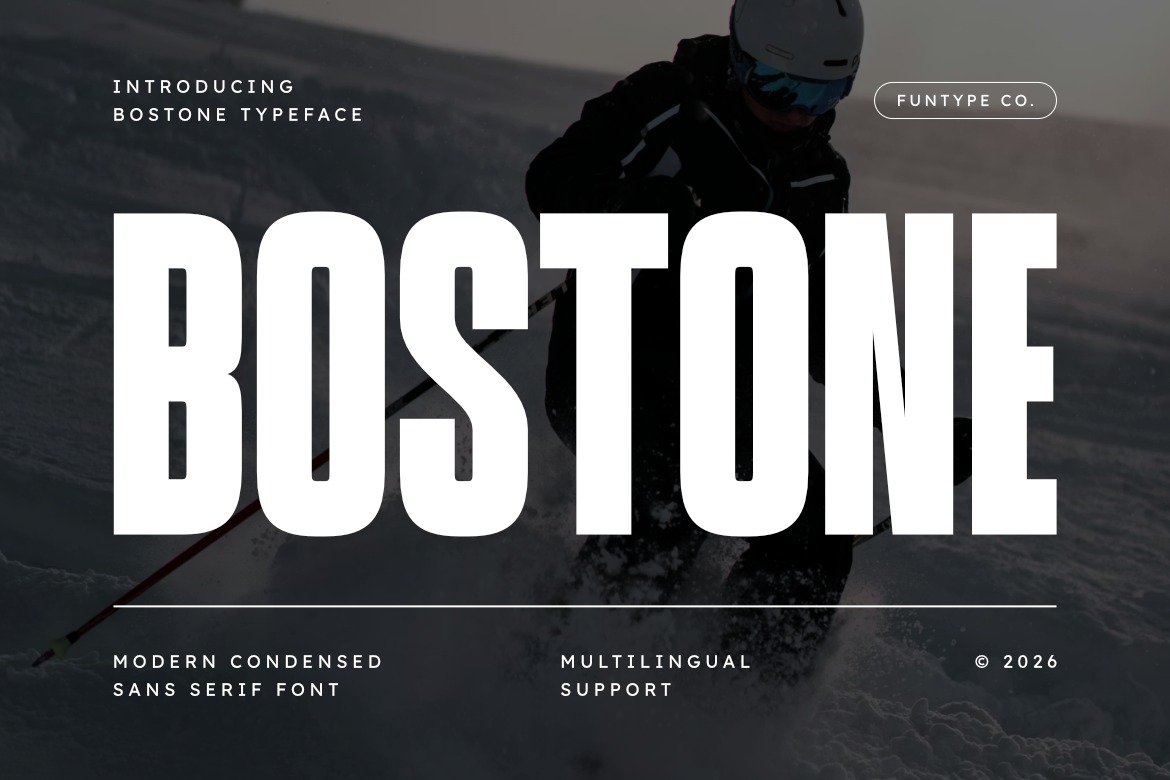
Bostone Font
Bostone Font – Modern Condensed Sans Serif Font is a premium-quality font developed to enhance your work with a polished, modern, and visually elevated look. Bostone is a sophisticated and powerful modern condensed sans serif font, thoughtfully designed to capture the essence of vertical impact and contemporary storytelling. With its tall, ultra-compressed structure and clean geometric lines, Boston offers a professional aesthetic that brings a touch of commanding presence to any creative project.
This font is the ideal choice for designers looking to add a professional yet high-impact touch to their work. Whether you are crafting a striking cinematic poster, a sleek sports brand identity, or bold editorial layouts, Boston provides a seamless blend of modern edge and digital authority.
Main Features:
Modern Condensed Design: Optimized for a bold, space-efficient, and professional look.
Clean Vertical Lines: Meticulously crafted for superior visibility and a high-end feel.
Commanding Presence: Perfect for headlines, posters, and large-scale digital displays.
Professional Aesthetic: High-end finish for modern tech, sports, and industrial branding.
Multilingual Support: Fully ready for diverse global design projects.